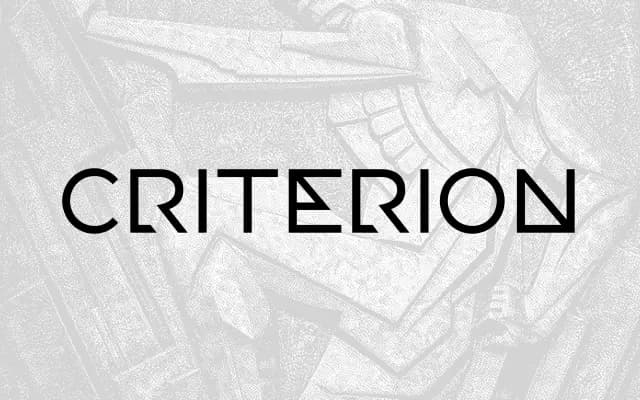
An experimental display typeface in five weights drawing on constructivism, art deco and science fiction aesthetics, with Latin and Cyrillic support.
Five weights from Thin to Bold, designed for short bursts of highly stylised text rather than extended setting. The letterforms pull from constructivist geometry and art deco conventions, with a science fiction inflection that lends it a distinctive retro-futurist character. Language support spans over thirty Latin-script languages plus Belarusian, Bulgarian, Russian, Ukrainian and other Cyrillic-script languages.
Described explicitly as an experimental display typeface fusing constructivism, art deco, geometry and science fiction, making it firmly a display face with geometric underpinnings rather than a functional text family.